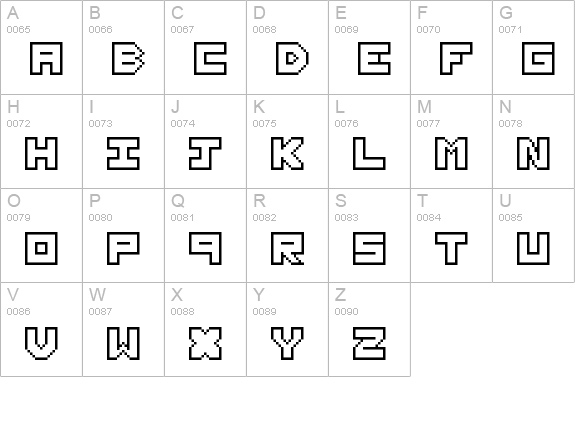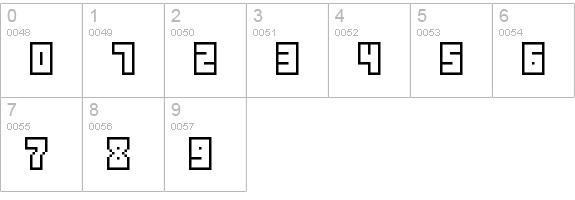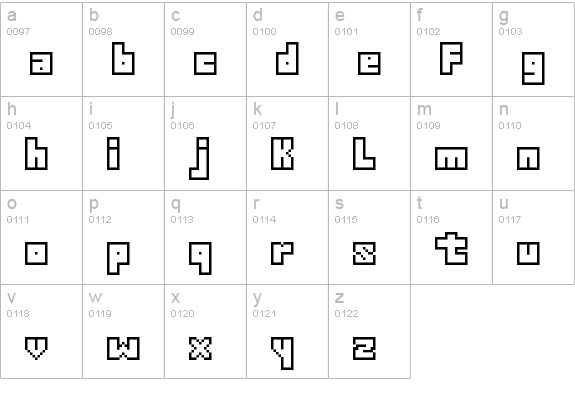
Thirteen Pixel Fonts Regular Font Details
Thirteen Pixel Fonts Regular is the standard, neutral variant in the Thirteen typeface family \xE2\x80\x94 well suited to general body text, paragraphs, and standard typographic work.
Thirteen Pixel Fonts Regular is a visually appealing font that is perfect for adding a touch of retro charm to your designs. With its clean lines and crisp edges, this font captures the essence of classic pixelated typography. Designed with precision and attention to detail, Thirteen Pixel Fonts Regular is versatile and suitable for various design projects such as logos, posters, websites, and more. Its compact and pixelated appearance adds a unique and distinct visual element, making it stand out from other fonts. This font is not only stylish but also easily readable, making it a great choice for both headlines and body text. Its compact size allows for efficient use of space, making it ideal for designs that require a large amount of information without sacrificing aesthetics. The best part? Thirteen Pixel Fonts Regular is available for free download at FontsMarket.com. You can easily access this font and use it in your personal and commercial projects without any limitations. Whether you are a designer, developer, or simply someone looking to add a touch of nostalgia to your creations, Thirteen Pixel Fonts Regular is the perfect choice. With its free availability and versatile design, it is an excellent addition to your font collection.